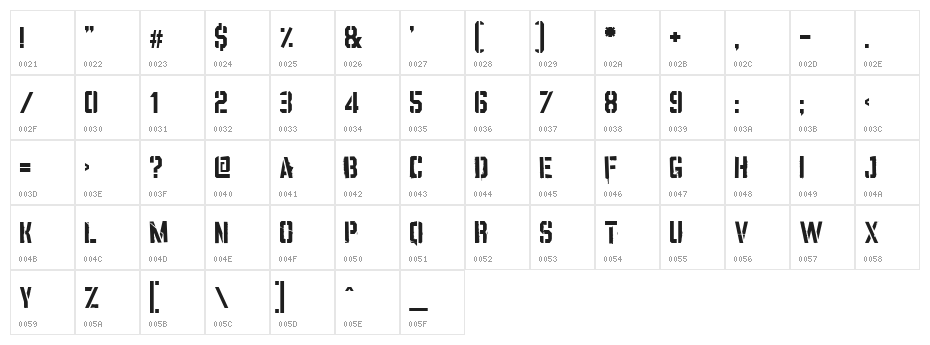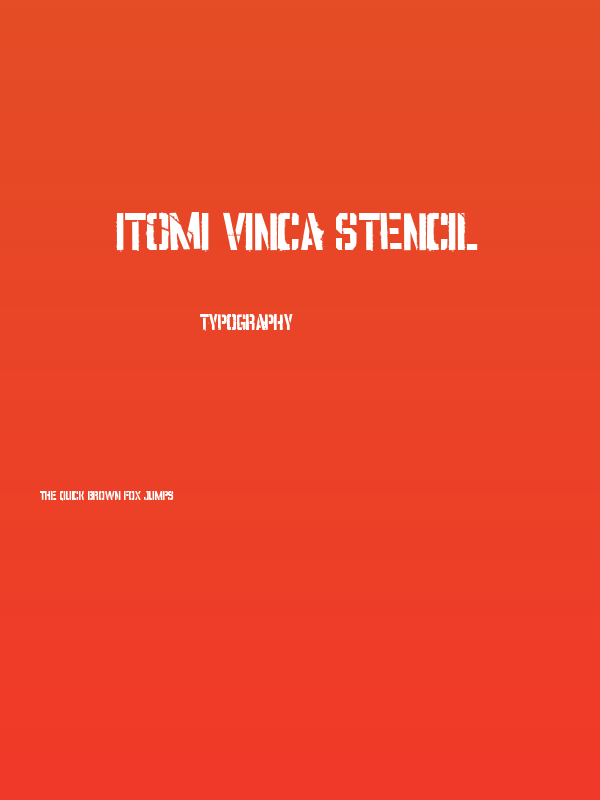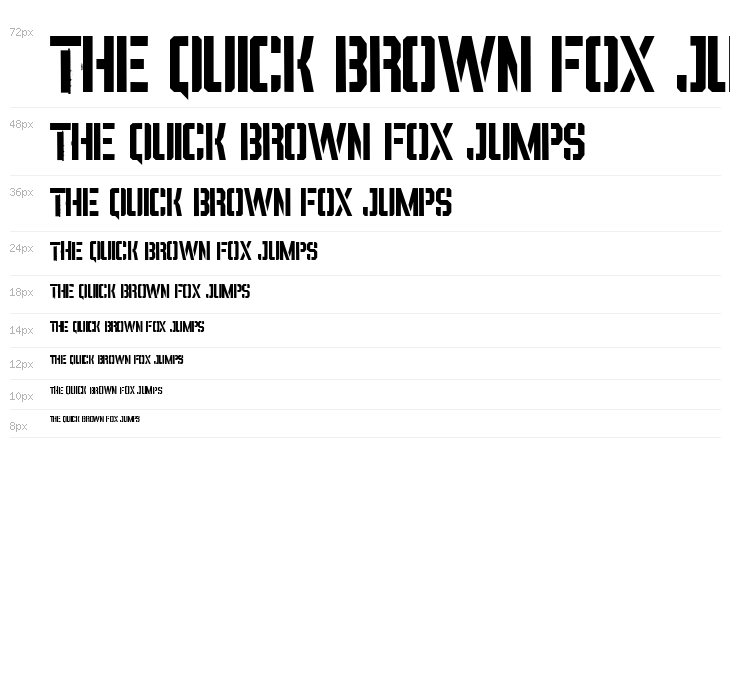
ITOMI VINCA STENCIL Font
This font features a bold, stencil-like design with a rugged, distressed appearance. The uppercase letters are characterized by sharp angles and geometric shapes, giving it a strong, industrial feel. The distressed texture adds a vintage, worn-out look, making it ideal for projects that require a gritty, urban aesthetic. The numbers and special characters maintain the same bold, stencil style, ensuring consistency across all elements. This font is perfect for creating impactful headlines, posters, and branding materials that need to convey strength and edginess.
Overall StyleVintage, Industrial
Use CaseHeadlines, Posters, Branding
Proposed ProjectsIdeal for posters, branding, urban-themed designs, and impactful headlines.